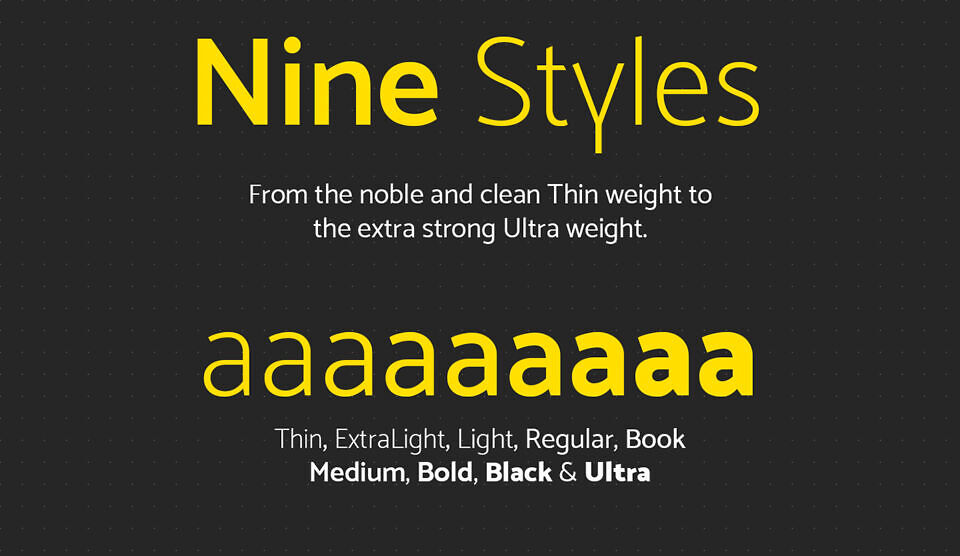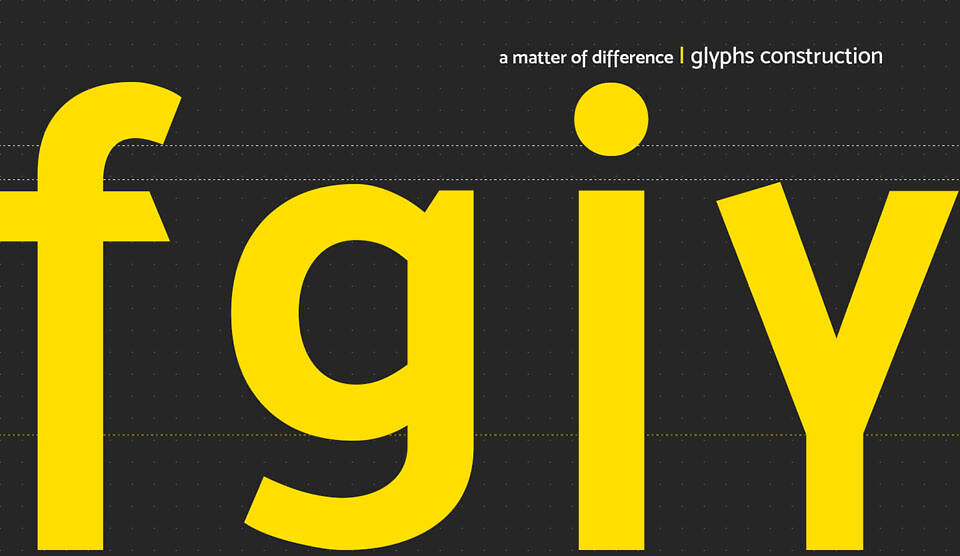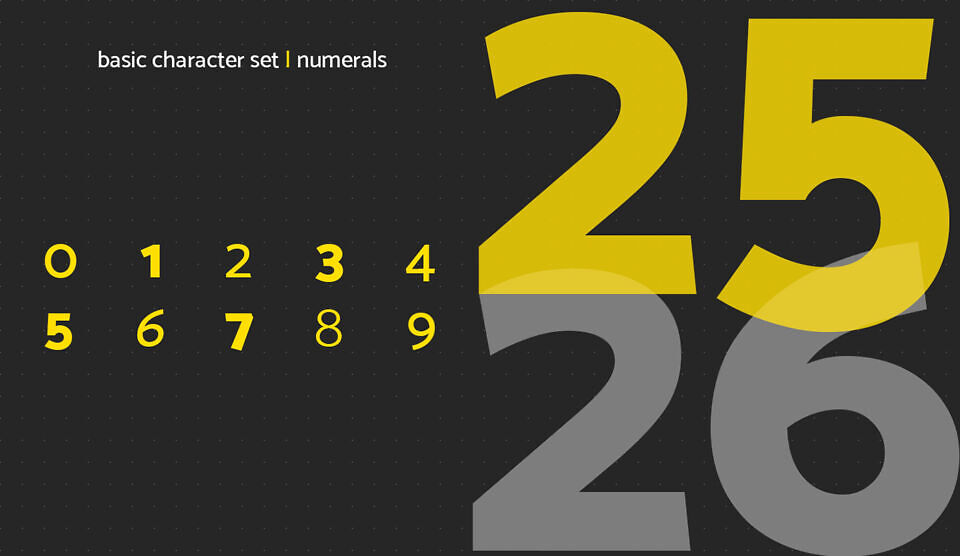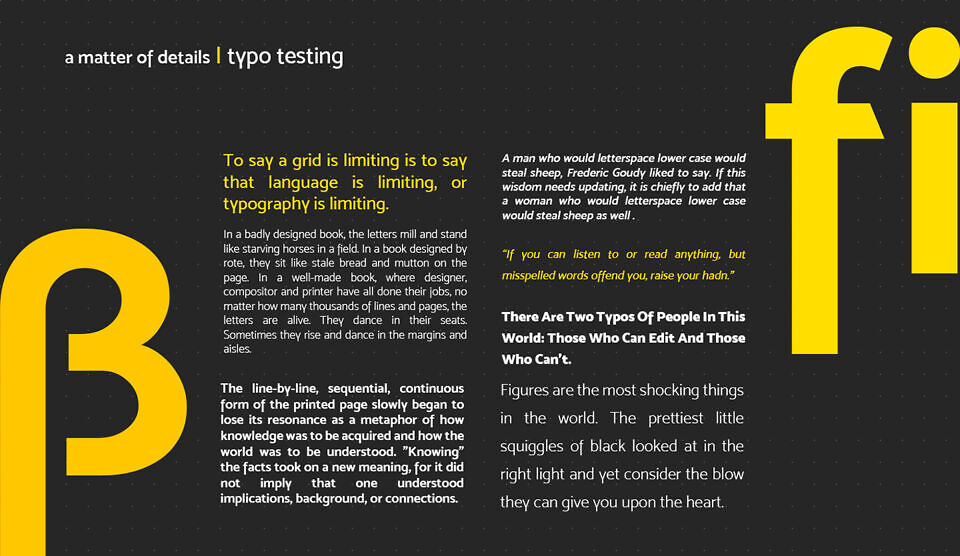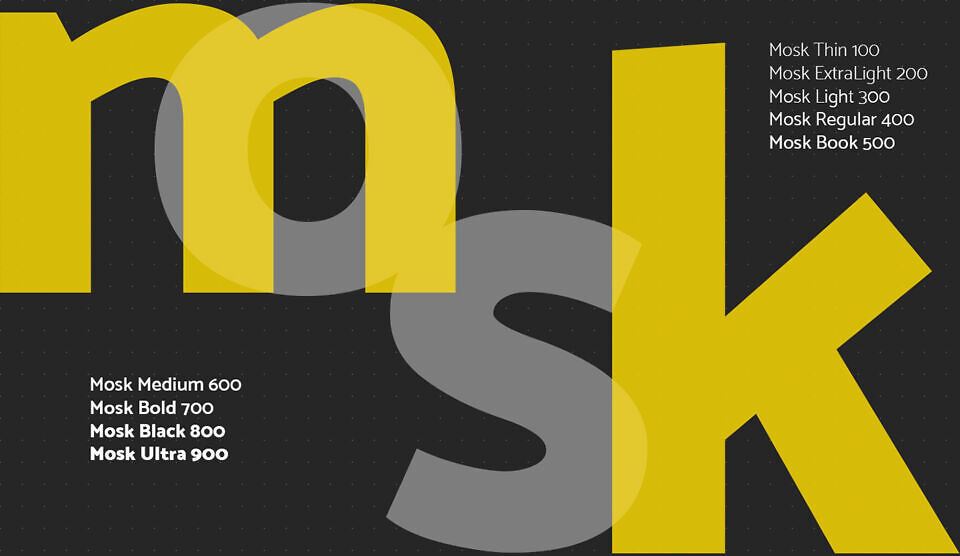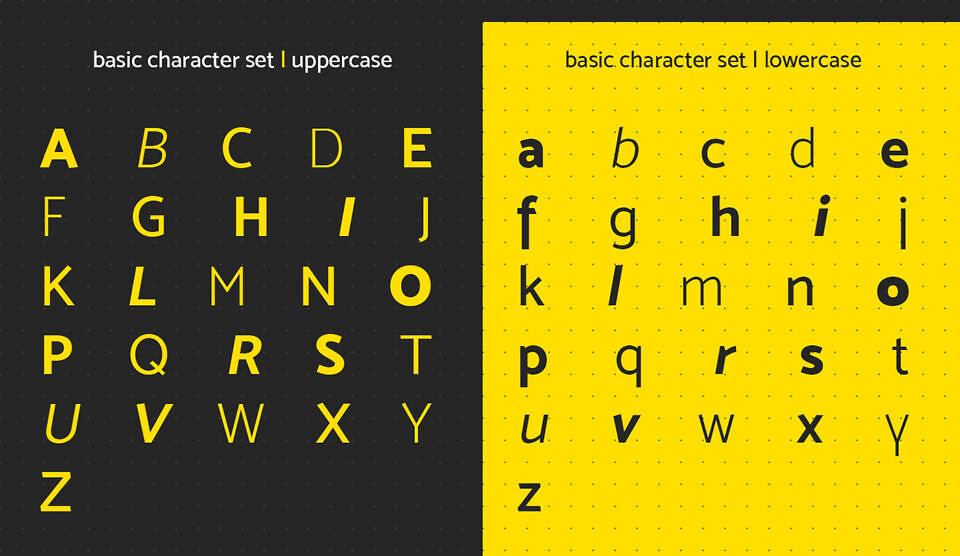
Mosk is a clean, noble, and linear sans-serif font family designed for versatility and clarity.
With nine styles ranging from Thin (100) to Ultra (900)—including ExtraLight, Light, Regular, Book, Medium, Bold, and Black—Mosk adapts effortlessly to various design needs, from subtle body text to bold headlines. Its meticulously crafted letterforms ensure readability and balance, avoiding the chaos of poorly designed typography.
The font’s basic character set includes uppercase, lowercase, and numerals, making it suitable for diverse applications. Mosk’s refined construction emphasizes precise letterspacing, offering a polished, modern aesthetic. Whether in print or digital media, its lighter weights bring elegance, while heavier ones deliver impact.